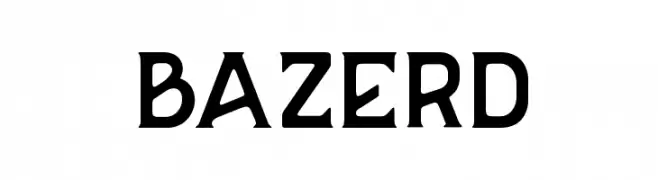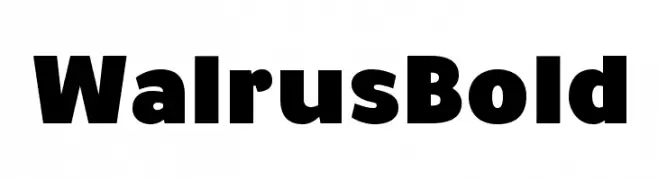
A casual handwritten font with a dynamic and organic feel.
A modern, handwritten font with a casual and fluid style.
A bold, geometric font with a modern and edgy style.
An elegant and flowing script font with bold, cursive letterforms.
A playful, hand-drawn style font with tall, narrow letterforms.
A modern, geometric font with a monolinear and interconnected style.
A bold, impactful font with thick, uniform strokes and a modern style.
A bold, handwritten script font with a playful and dynamic style.
A bold, playful font with a hand-drawn, rounded style.
A playful, hand-drawn font with bold, uneven strokes and a cartoonish style.